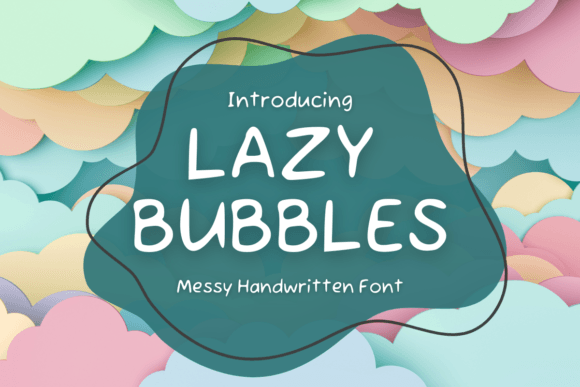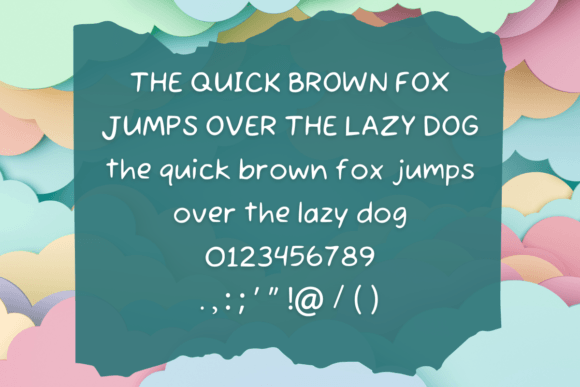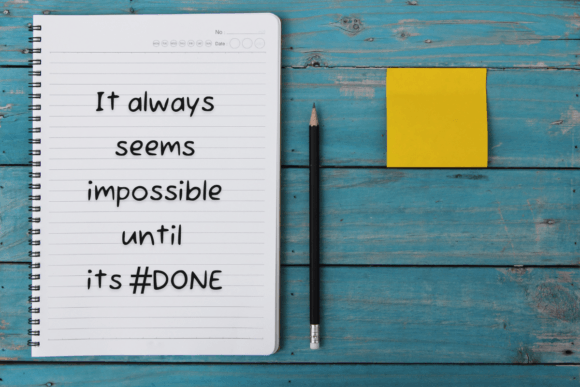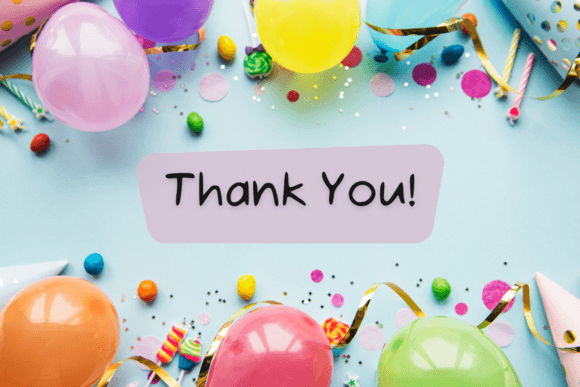
Lazy Bubbles Font
About Lazy Bubbles Font
Lazy Bubbles is a messy and quirky handwritten font. Its childish and friendly style makes it suitable for lots of designs and projects. This font will give your projects an informal and playful look!
Add it to your creative ideas and designs and make them stand out!